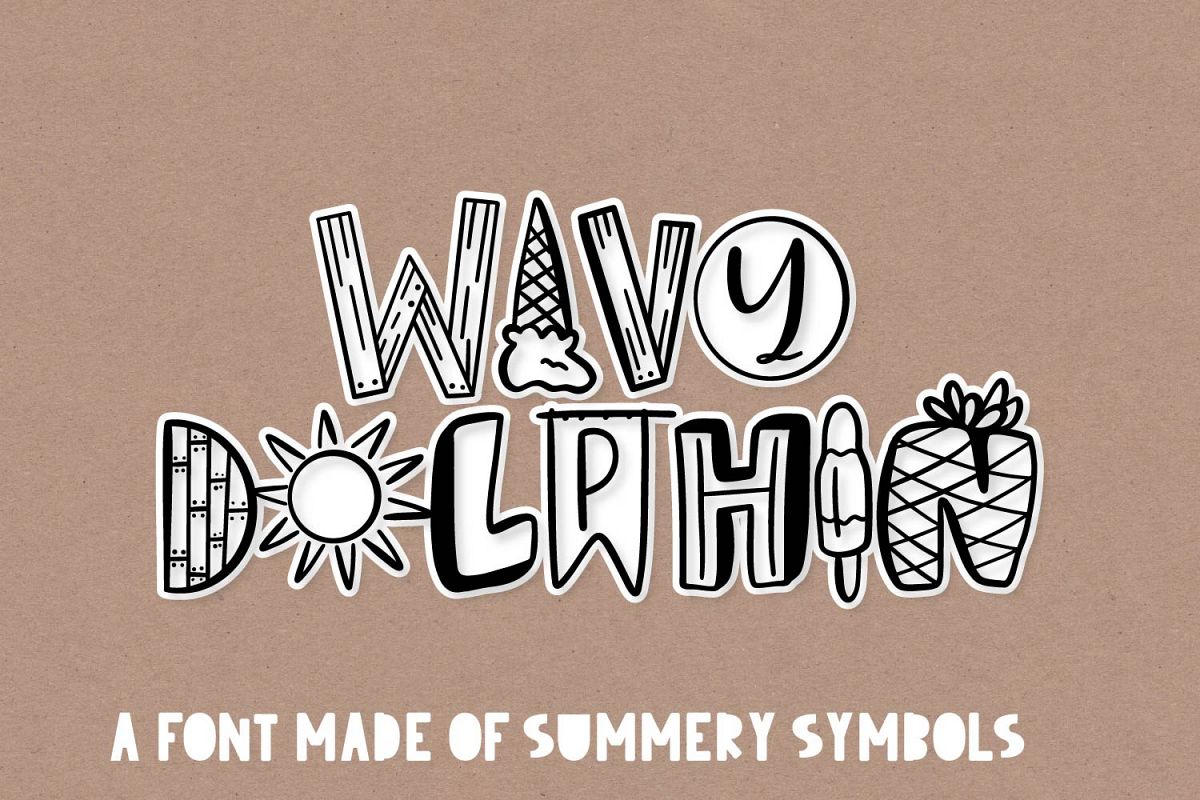
Wavy Dolphin - A Summer Word-Art Font
Each letter includes 2 version - mapped on the upper and lower case of the letter.
Mix cases for the best variety.
Numbers included as well.